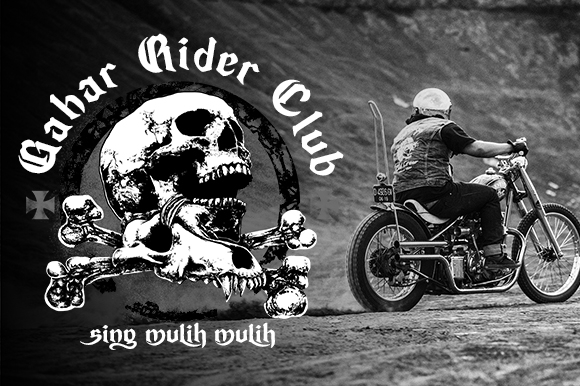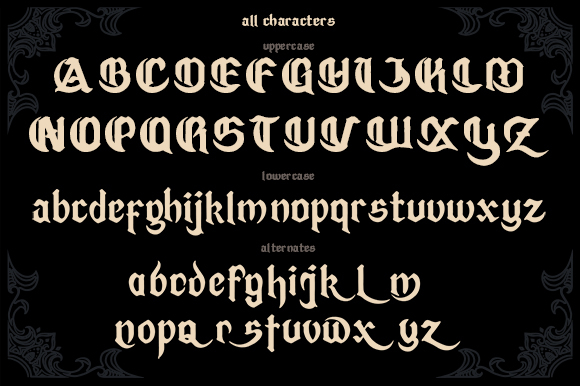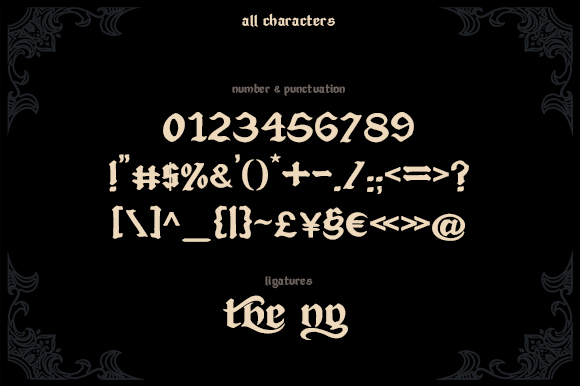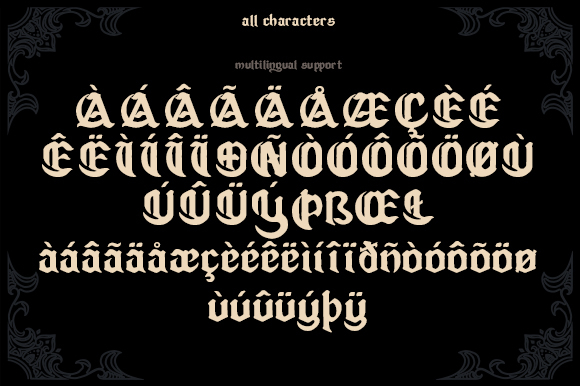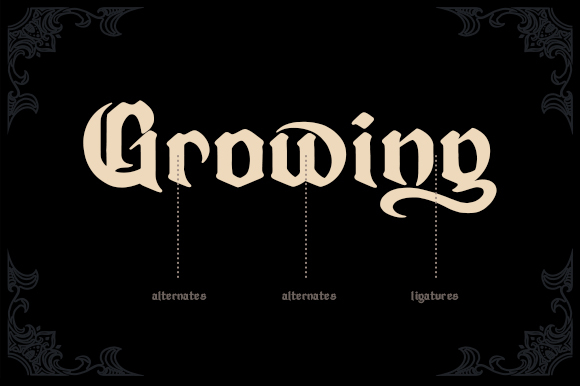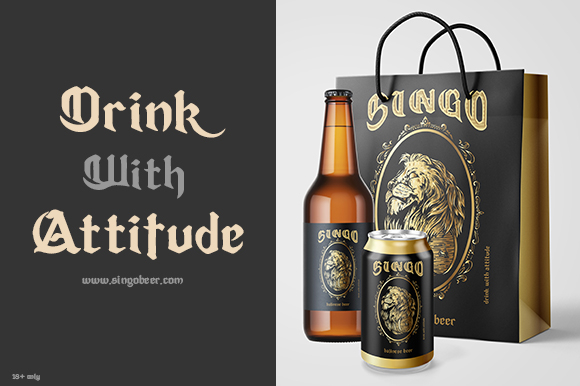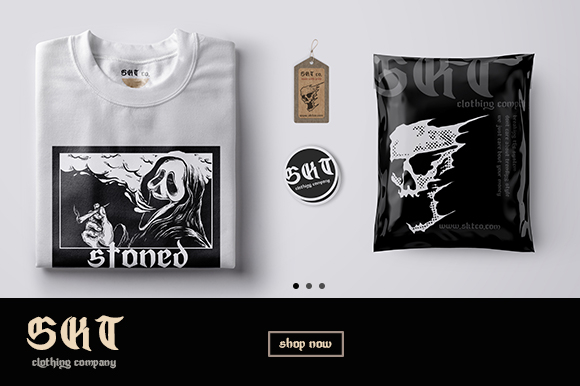
About Blowiz Font
Blowiz looks bold, yet sophisticated and features chunky and extended characters that will look particularly adept when used in logos, branding, packaging design, and much more. This masterfully designed blackletter font is a true must-have.